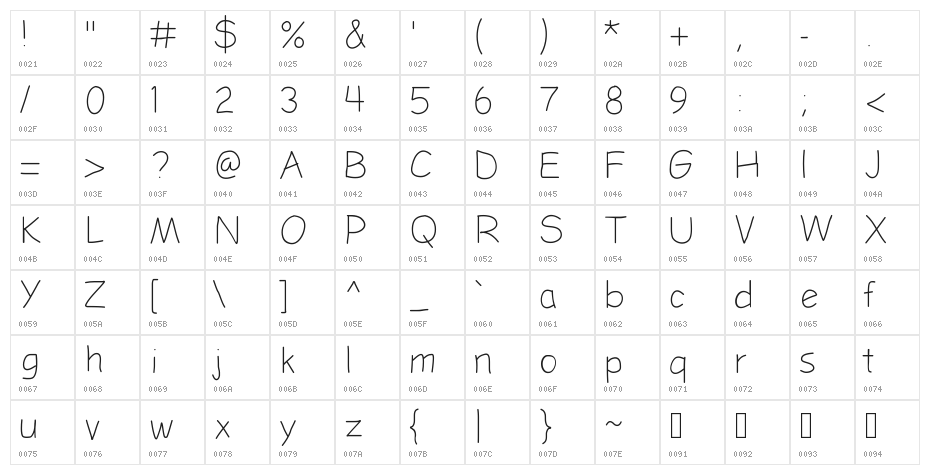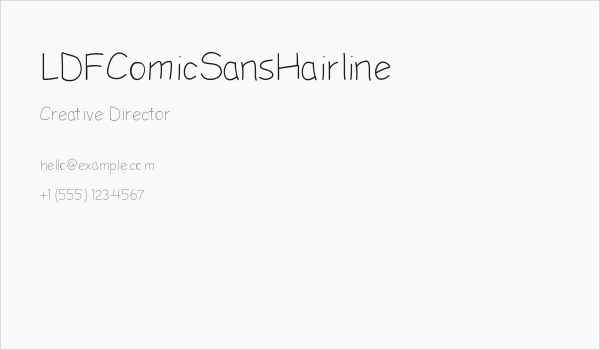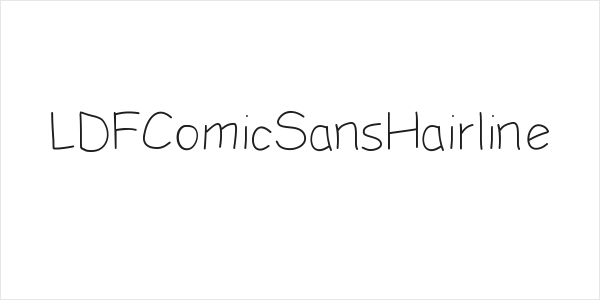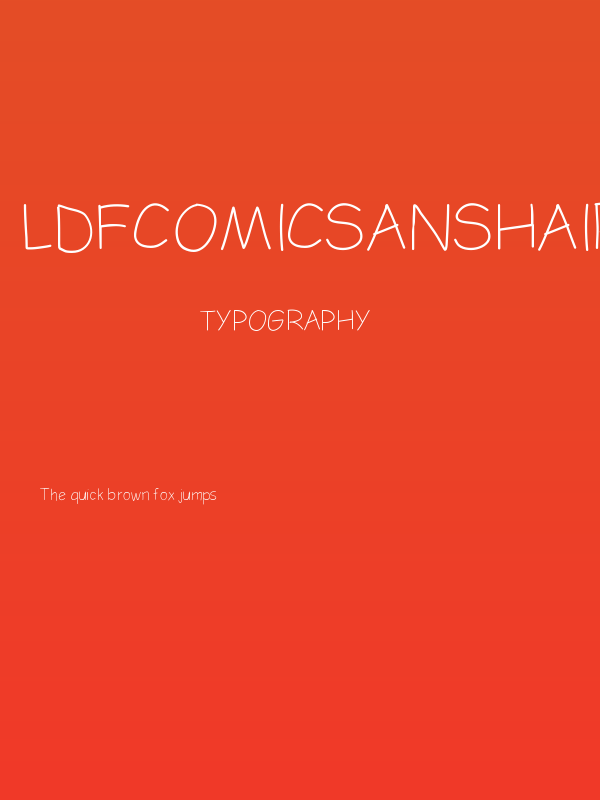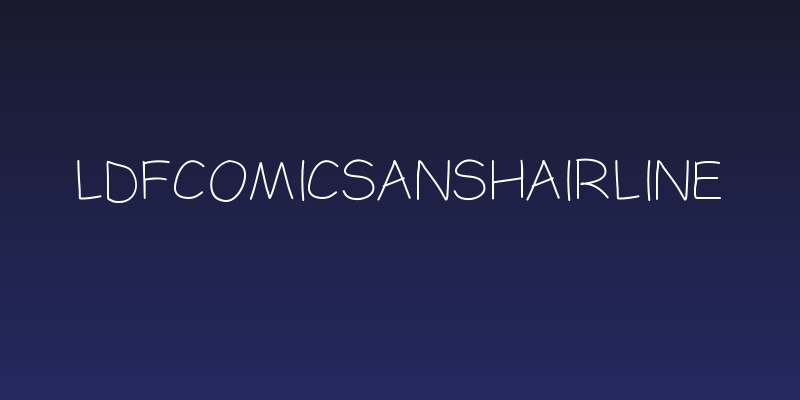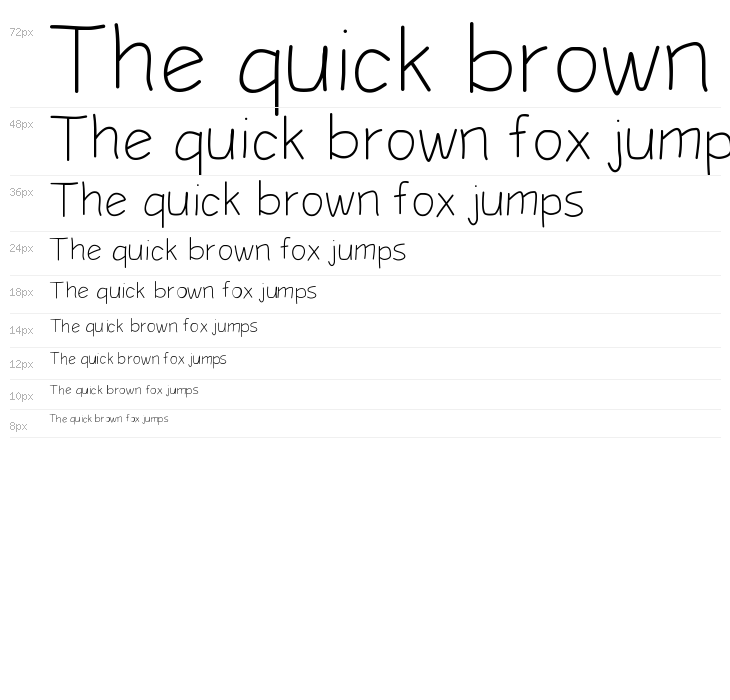
LDFComicSansHairline Font
LDFComicSansHairline Description
This font features a playful and informal style, characterized by its thin, hairline strokes and casual appearance. The letters are rounded and slightly irregular, giving it a hand-drawn feel. It maintains a consistent line weight throughout, contributing to its light and airy aesthetic. The font includes a full set of uppercase and lowercase letters, numbers, and a variety of special characters. Its simplicity and readability make it suitable for informal and friendly communication, appealing to a younger audience or for projects requiring a relaxed tone.
| Use Case | Headlines, Informal text, Children's content |
| Proposed Projects | Ideal for children's books, casual invitations, comic strips, and playful branding. |